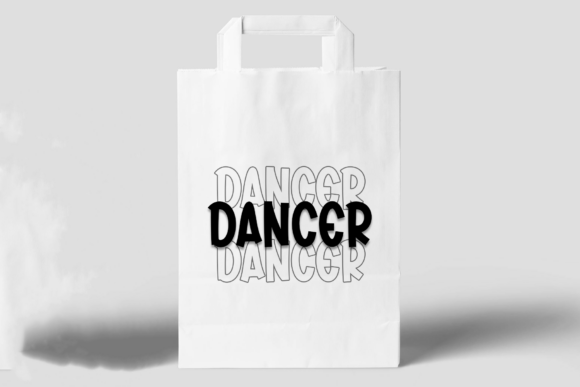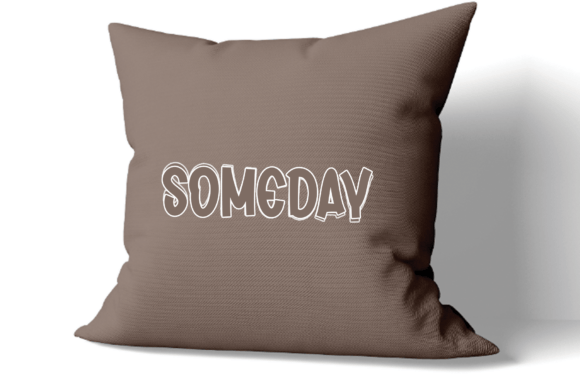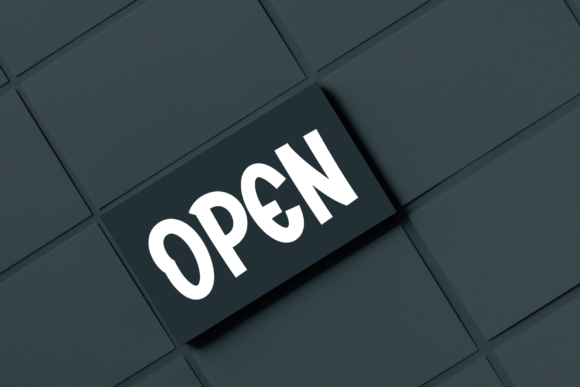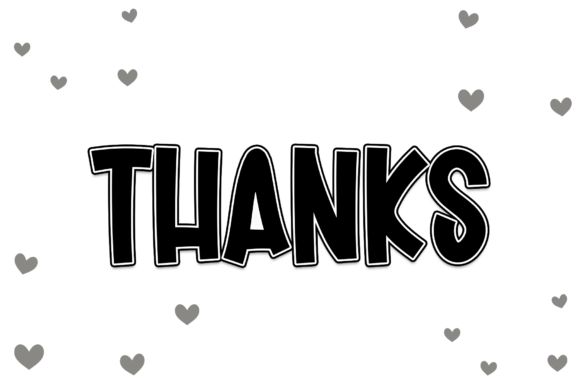
Introducing Comic Valentine Font: The Perfect Handwritten Style for Your Designs
Are you looking for a font that adds a touch of elegance and casualness to your designs? Look no further than Comic Valentine Font. This beautiful handwritten font is designed to resemble writing with a marker, giving it a relaxed and sporty feel that’s perfect for a wide range of design projects.
What is Comic Valentine Font?
Comic Valentine Font is a unique and stylish handwritten font that’s perfect for designers and crafters who want to add a personal touch to their work. Its marker-like quality gives it a distinctive look that’s both luxurious and elegant, yet casual and approachable. This font is ideal for creating beautiful branding, logos, wedding supplies, greeting cards, fashion lookbooks, marketing promotions, and more.
Key Features of Comic Valentine Font
- Handwritten style: Comic Valentine Font has a natural, handwritten look that’s perfect for creating personalized designs.
- Marker-like quality: The font’s marker-like quality gives it a relaxed and sporty feel that’s perfect for a wide range of design projects.
- Luxurious and elegant: Despite its casual feel, Comic Valentine Font has a luxurious and elegant quality that makes it perfect for high-end designs.
- Versatile: This font is suitable for a wide range of design projects, from branding and logos to wedding supplies and greeting cards.
Uses for Comic Valentine Font
Comic Valentine Font is a versatile font that can be used for a wide range of design projects. Here are some ideas to get you started:
- Branding and logos: Use Comic Valentine Font to create a unique and memorable brand identity that’s both elegant and approachable.
- Wedding supplies: This font is perfect for creating beautiful wedding stationery, including invitations, save-the-date cards, and more.
- Greeting cards: Comic Valentine Font is ideal for creating personalized greeting cards for special occasions, such as birthdays, holidays, and more.
- Fashion lookbooks: Use this font to create stylish and elegant lookbooks that showcase your fashion designs.
- Marketing promotions: Comic Valentine Font is perfect for creating eye-catching marketing promotions, including flyers, brochures, and more.
Tips for Using Comic Valentine Font
Here are some tips for getting the most out of Comic Valentine Font:
- Use it with contrasting colors: Comic Valentine Font looks best when paired with contrasting colors that make it stand out.
- Experiment with different sizes: This font looks great in a variety of sizes, from large headings to smaller body text.
- Pair it with other fonts: Comic Valentine Font pairs well with other fonts, including serif and sans-serif fonts.
- Use it consistently: To create a cohesive look, use Comic Valentine Font consistently throughout your design.
Comic Valentine Font is a beautiful and versatile handwritten font that’s perfect for designers and crafters who want to add a personal touch to their work. Its relaxed and sporty feel makes it ideal for a wide range of design projects, from branding and logos to wedding supplies and greeting cards. With its luxurious and elegant quality, Comic Valentine Font is sure to become a favorite in your design arsenal.